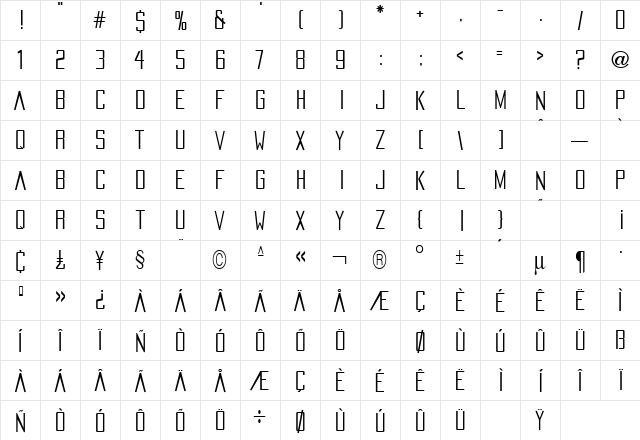
Pacifica Regular Font Preview
Pacifica Regular
Design Context for Pacifica Typeface
Pacifica offers clean, dependable letterforms without strong stylistic allegiance, making it a practical choice for designers who need flexibility.